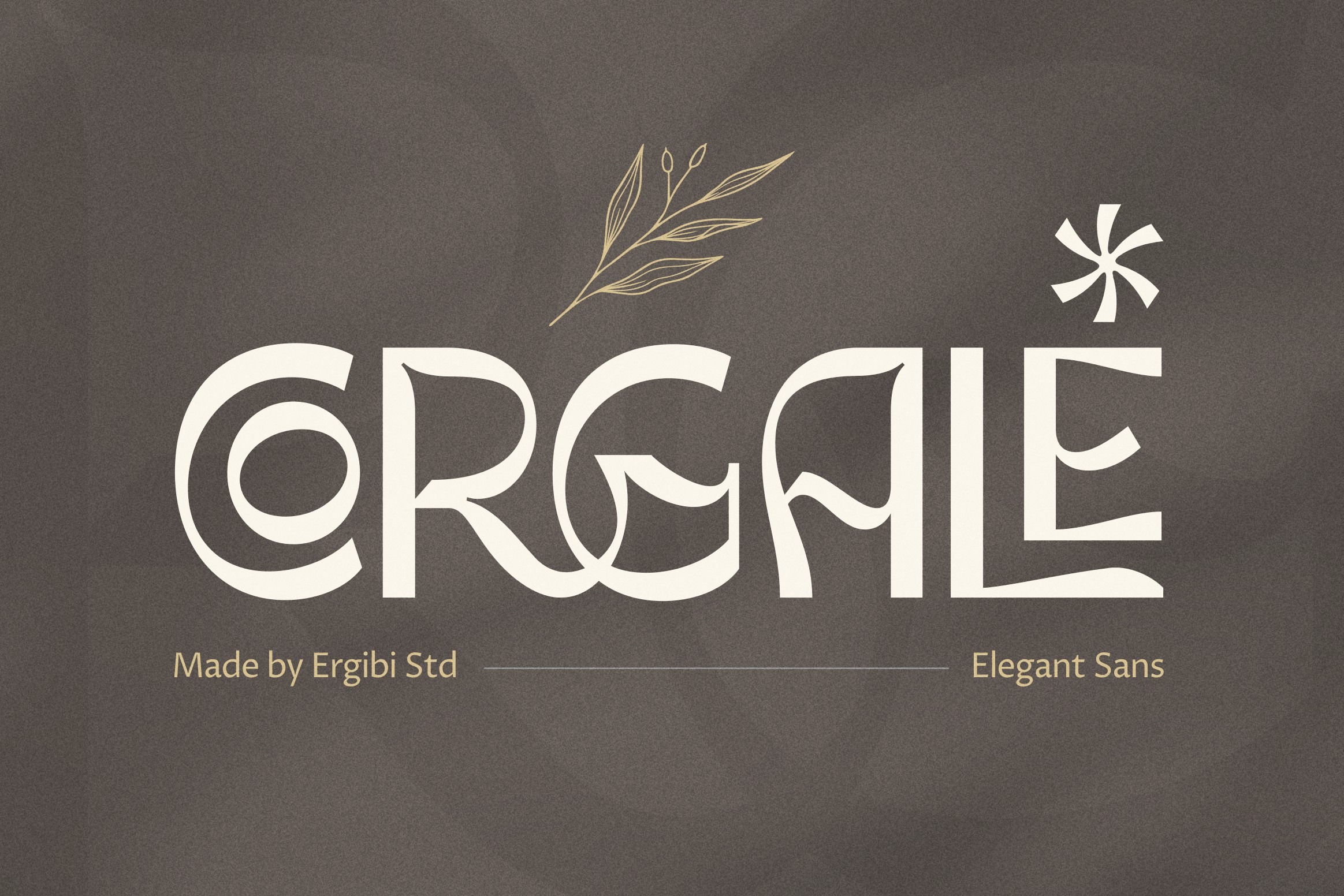
Corgale Font
Corgale Font is a stylish typeface that enhances visual appeal and works effortlessly in many design contexts. Corgale — a quirky and fun sans, perfect for branding, headlines, posters, books, magazines, and packaging projects! Mainly characterized by a modern look with a straight and clean shape, it blends beautifully with both contemporary and vintage styles.
This font features playful ligatures that bring a unique personality to each character. Additionally, Corgale is a unicase typeface, allowing you to creatively mix uppercase and lowercase letters for distinctive typography compositions.